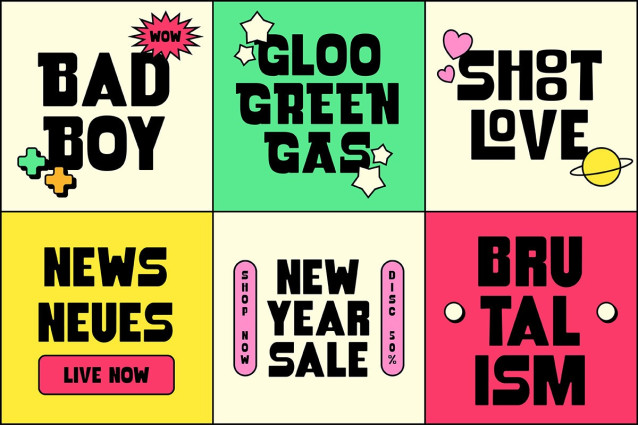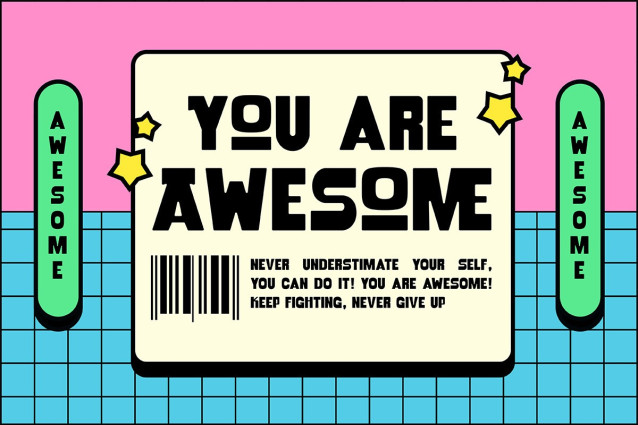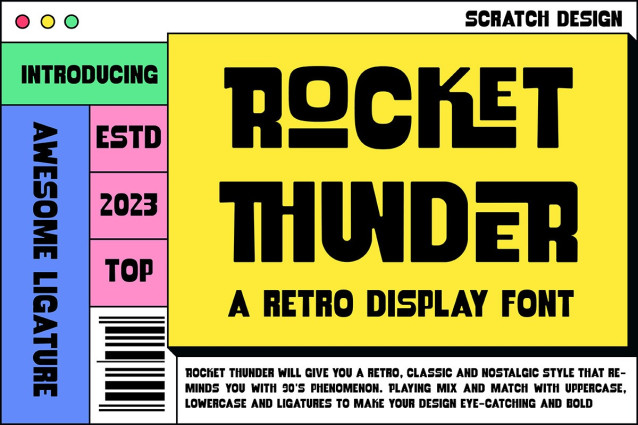
Rocket Thunder Font
Rocket Thunder Font is a retro, bold and chunky typeface with a style that typically features a classic that brings nostalgic feelings to your design. This font will be suitable for logos, posters, headlines, magazines, and branding, to make the design stand out, be eye-catching and grab attention. To access the alternate and ligatures glyphs, you need a program that supports OpenType features such as Adobe Illustrator CS and Adobe Indesign.